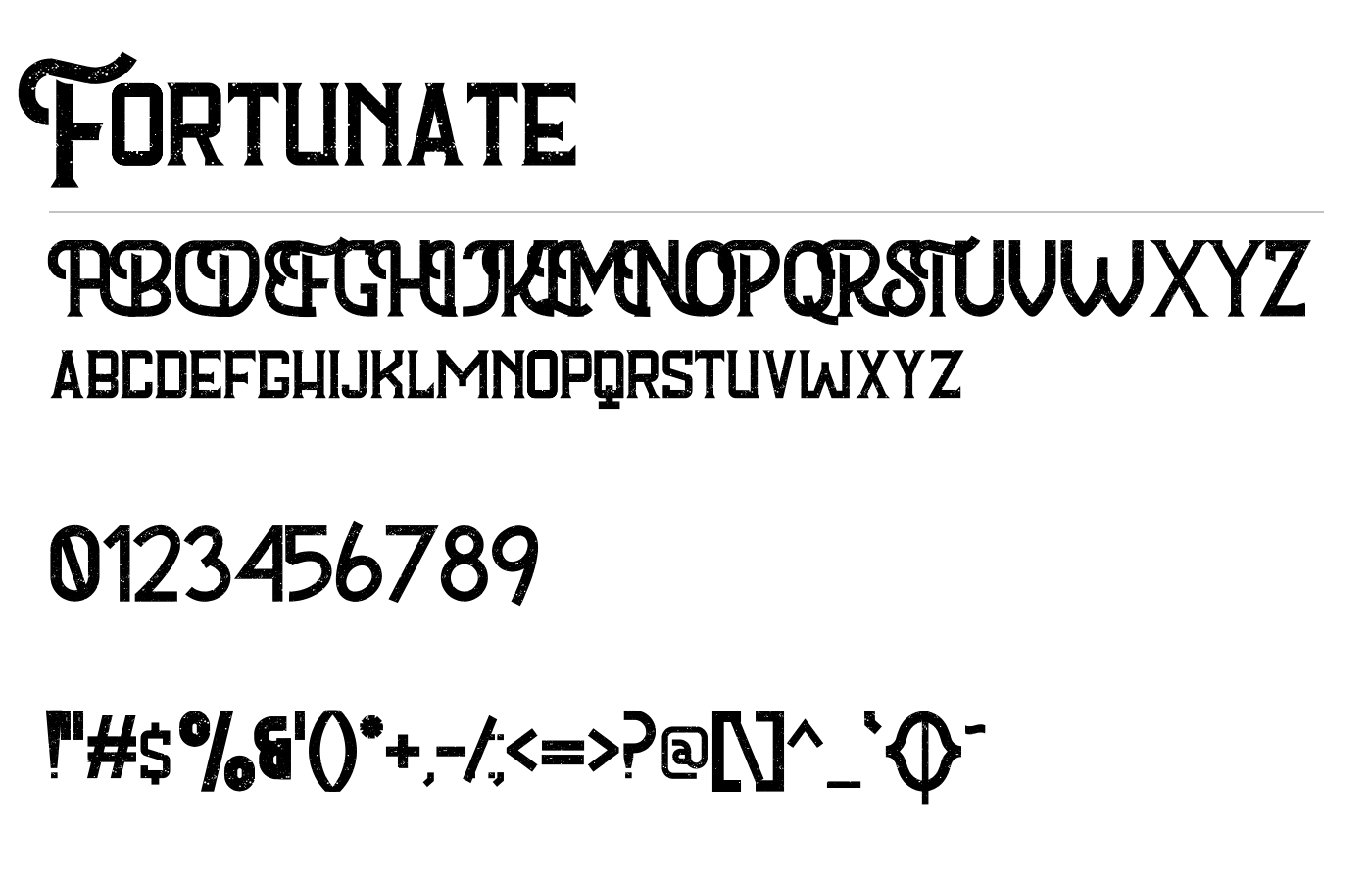
Fortunate Font is a bold, condensed serif typeface with a distinctive vintage character, featuring sharp, angular serifs and a textured, worn effect that adds rustic charm. It combines stylized uppercase forms with high contrast strokes and unique letter shapes, making it ideal for eye-catching logos, packaging, and headlines that want to convey a rugged yet sophisticated personality. This font works best in design contexts seeking a nostalgic or artisanal feel while maintaining strong readability and impact.
Fortunate Font
About Fortunate Font
| Font family | Fortunate Font |
| Designer | Stringlabs |